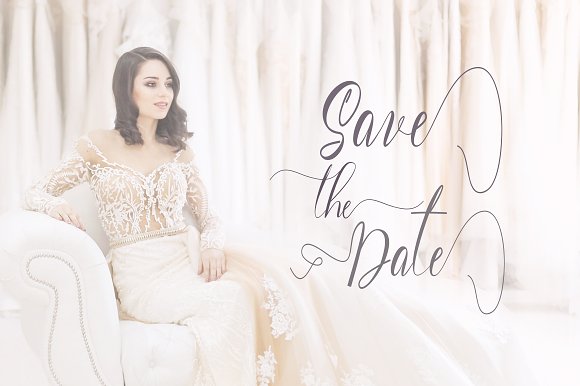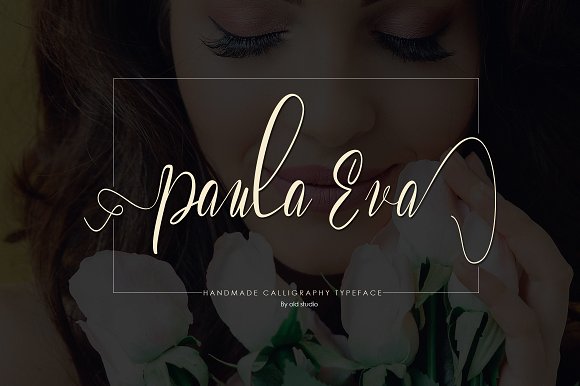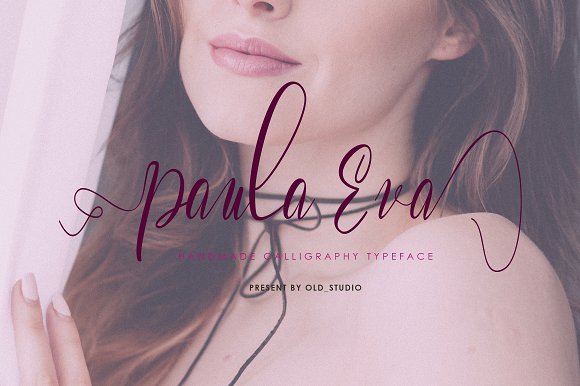
Paula Eva Script Font
Paula Eva Script is a new modern calligraphy Typeface Fonts collection from old_ studio, combines from copperplate to contemporary typeface, classic, beauty and elegant touch.